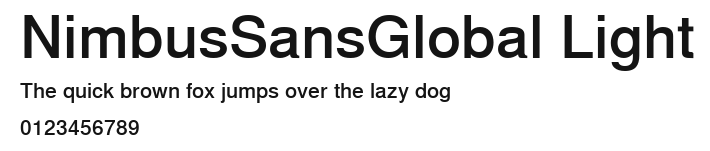
• Font Name: NimbusSansGlobal Light
• Full Font Name: NimbusSansGlobal Light Bold
About NimbusSansGlobal Light.ttf
NimbusSansGlobal Light.ttf is a modern, elegant sans-serif font designed for ultimate readability and visual harmony. Perfect for branding, headlines, web design, and print materials.